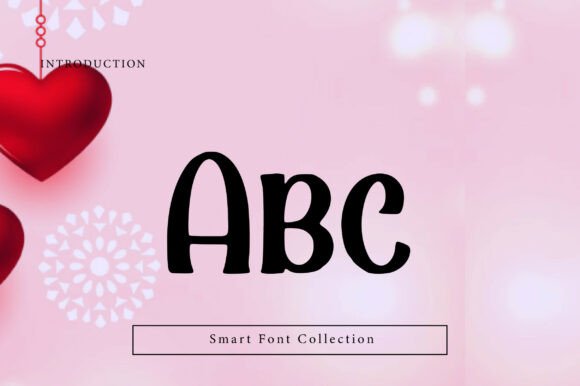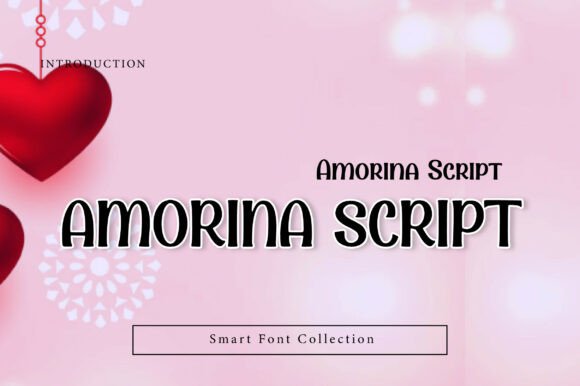
Discover the Charm of Amorina Script Font: Elevate Your Branding with Playful Elegance
Have you ever been in the midst of working on a design project, only to find yourself stuck on one thing: the perfect font? I recall a recent experience where I was tasked with creating a brand identity for a boutique bakery. The client wanted a font that was both elegant and approachable, but I just couldn’t seem to find the right fit. That was until I stumbled upon the Amorina Script font. Its unique blend of playfulness and sophistication instantly won me over, and I knew I had found the perfect solution.
A Personal Review: What I Love About Amorina Script
So, what makes Amorina Script so special? Here are a few things that I absolutely love about this beautiful font:
- ✨ Playful yet elegant: Amorina Script strikes the perfect balance between being friendly and refined, making it suitable for a wide range of design projects.
- ✅ Versatile: Whether you’re designing for a modern lifestyle brand, a bakery, or a fashion blog, this font adapts seamlessly to any style or theme.
- 💫 Attention-grabbing: The bold presence of Amorina Script ensures that your headlines will command attention without being overbearing.
- 👍 Easy to read: Despite its elegant appearance, this font remains highly readable, even at smaller sizes.
While Amorina Script is an exceptional font, there are a few minor quirks to be aware of:
- 🤔 Limited use of uppercase letters: Some designers might find that the font’s uppercase letters are not as stylized as the lowercase letters.
- ⚠️ Glyph limitations: As with any font, there may be limitations to the number of glyphs available, which could impact its use in certain design projects.
- Experiment with OpenType features, such as ligatures and stylistic alternates, to add an extra layer of creativity to your design.
The Story Behind Amorina Script
While the true origins of Amorina Script are shrouded in mystery, it’s said that the font was inspired by the elegant calligraphy of 18th-century Europe. The designer, known for their attention to detail and passion for typography, aimed to create a font that would evoke a sense of playfulness and sophistication. And so, Amorina Script was born – a beautiful, modern script font that balances elegance with approachability.
| What makes Amorina Script suitable for branding? | Amorina Script’s unique blend of playfulness and elegance makes it an excellent choice for branding, as it can help create a memorable and distinctive visual identity. |
| Can I use Amorina Script for packaging design? | Absolutely! Amorina Script’s elegant and refined appearance makes it perfect for boutique packaging, labels, and other product design applications. |
| Is Amorina Script suitable for body text? | While Amorina Script is primarily designed for headlines and titles, it can be used for body text in certain design projects. However, its elegant appearance might make it more suitable for smaller doses. |
| Can I use Amorina Script for digital designs? | Yes, Amorina Script is versatile enough to be used in both print and digital designs, including social media graphics, blogs, and website headers. |